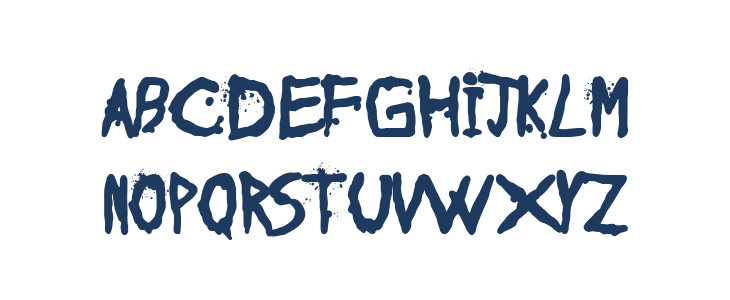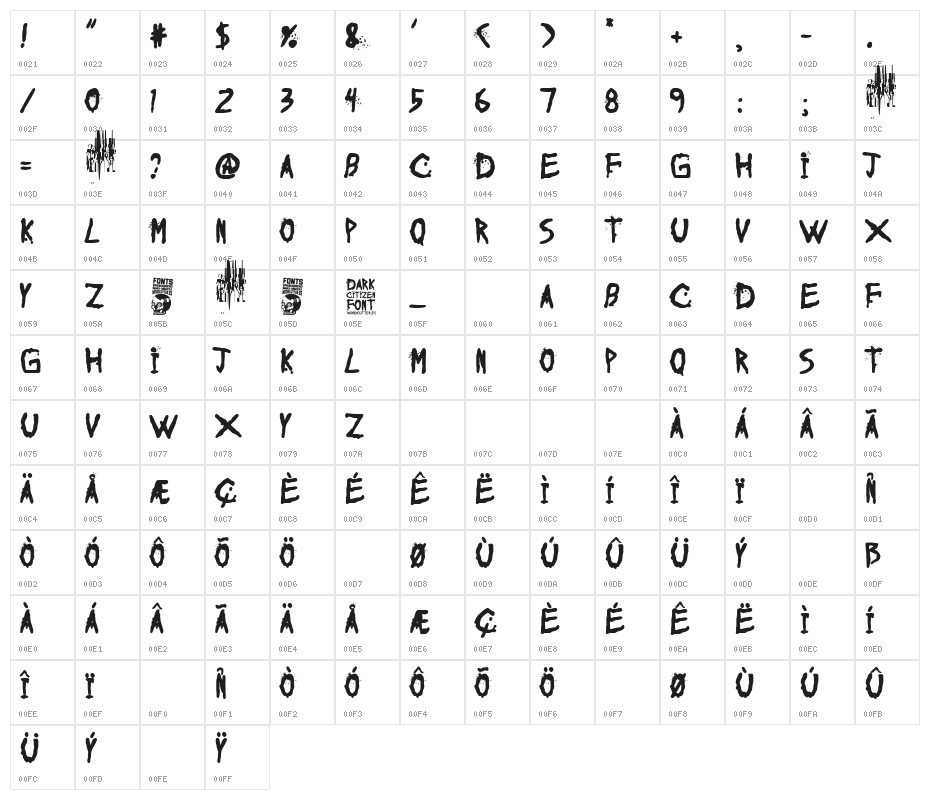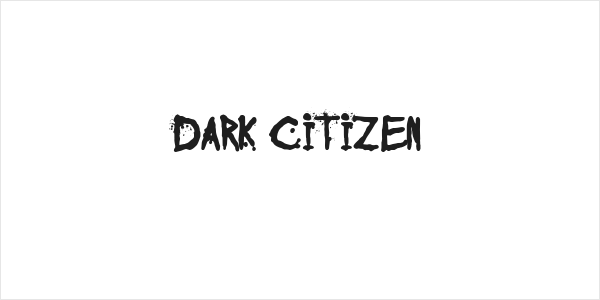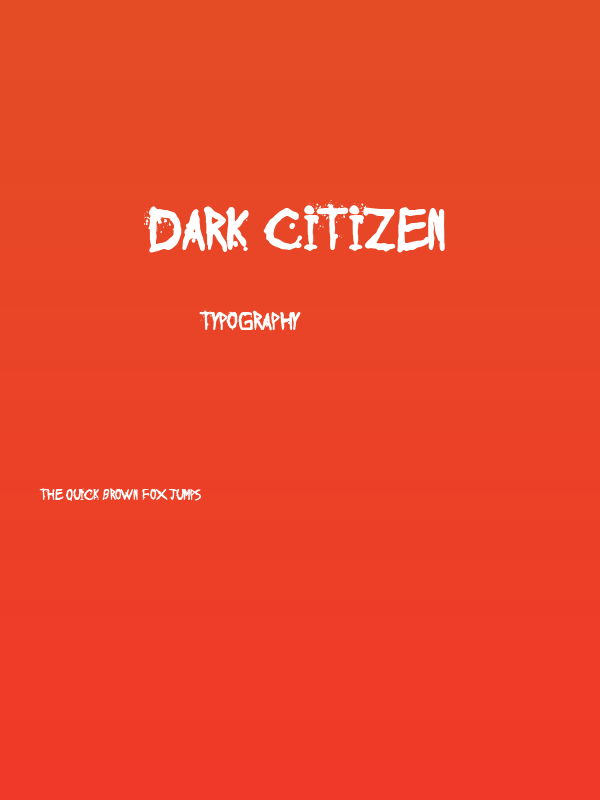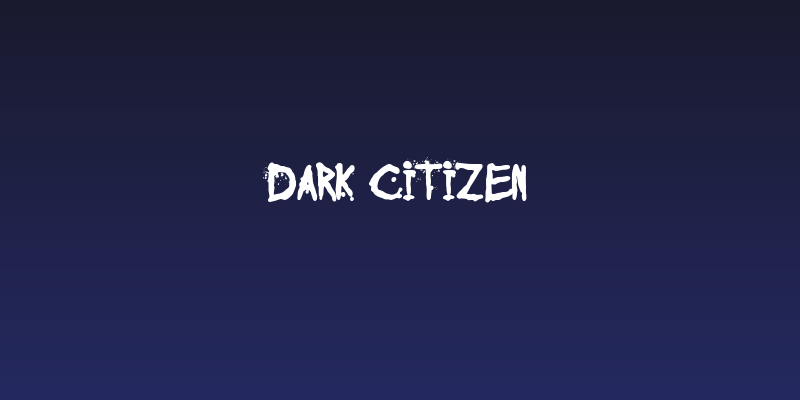
Dark Citizen Font
Dark Citizen Description
A rough, grungy handwritten font with irregular strokes and splatter effects, evoking a chaotic and rebellious aesthetic. The characters are bold and uneven, with a distressed appearance that mimics spray paint or ink splashes.
| Overall Style | Decorative, Grunge, Urban |
| Use Case | Headlines, Posters, Logos, Event Flyers |
| Proposed Projects | Horror movie posters, punk rock album covers, street art designs, Halloween invitations, edgy branding. |